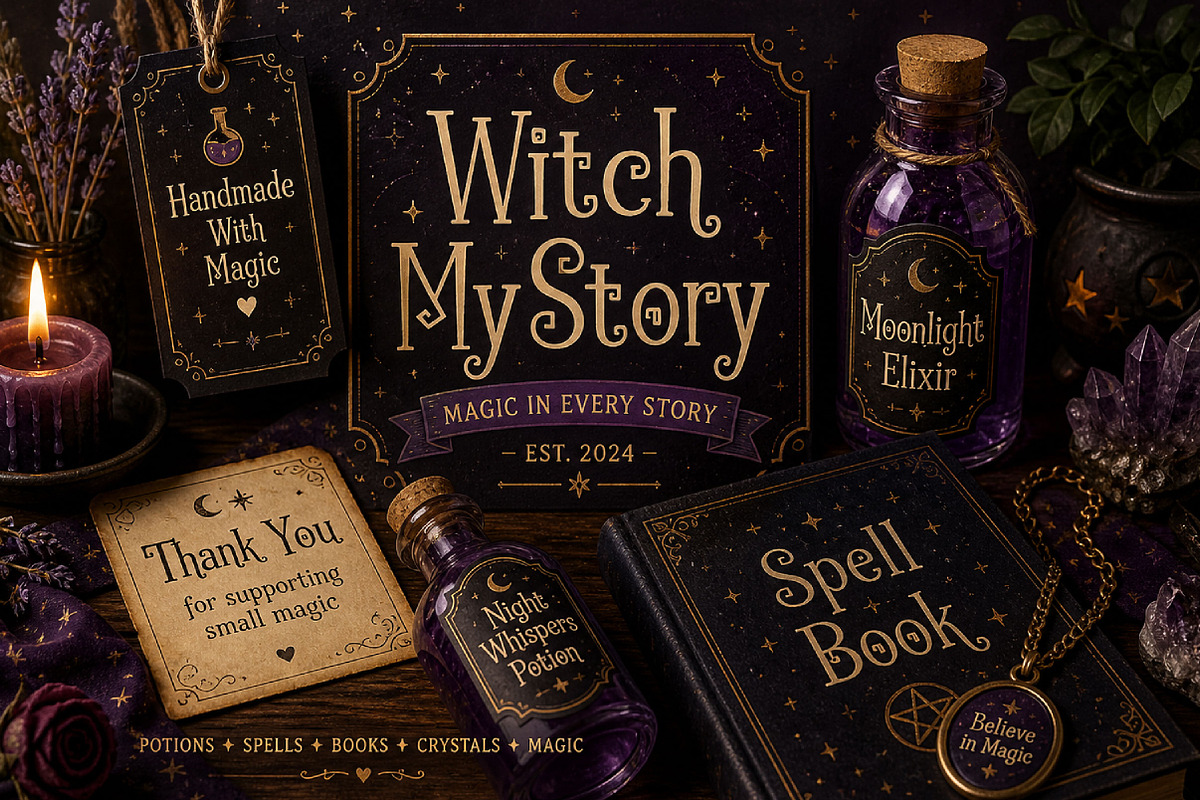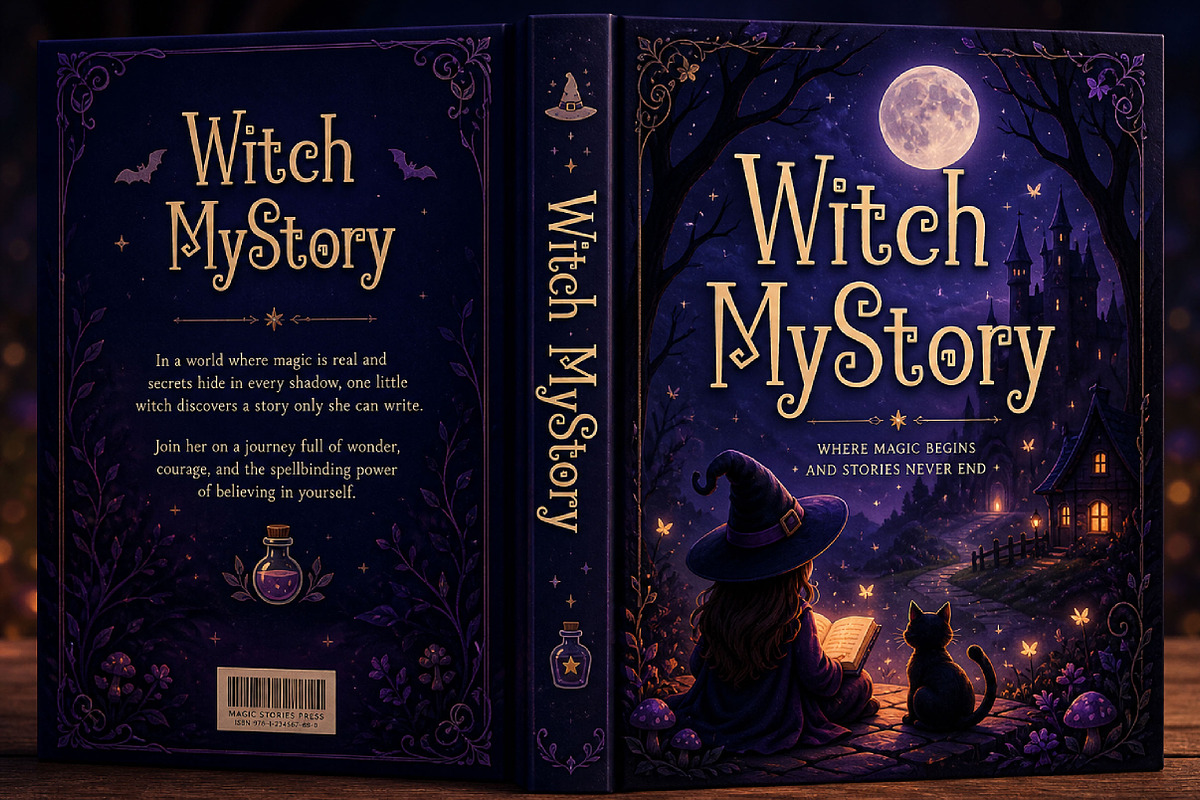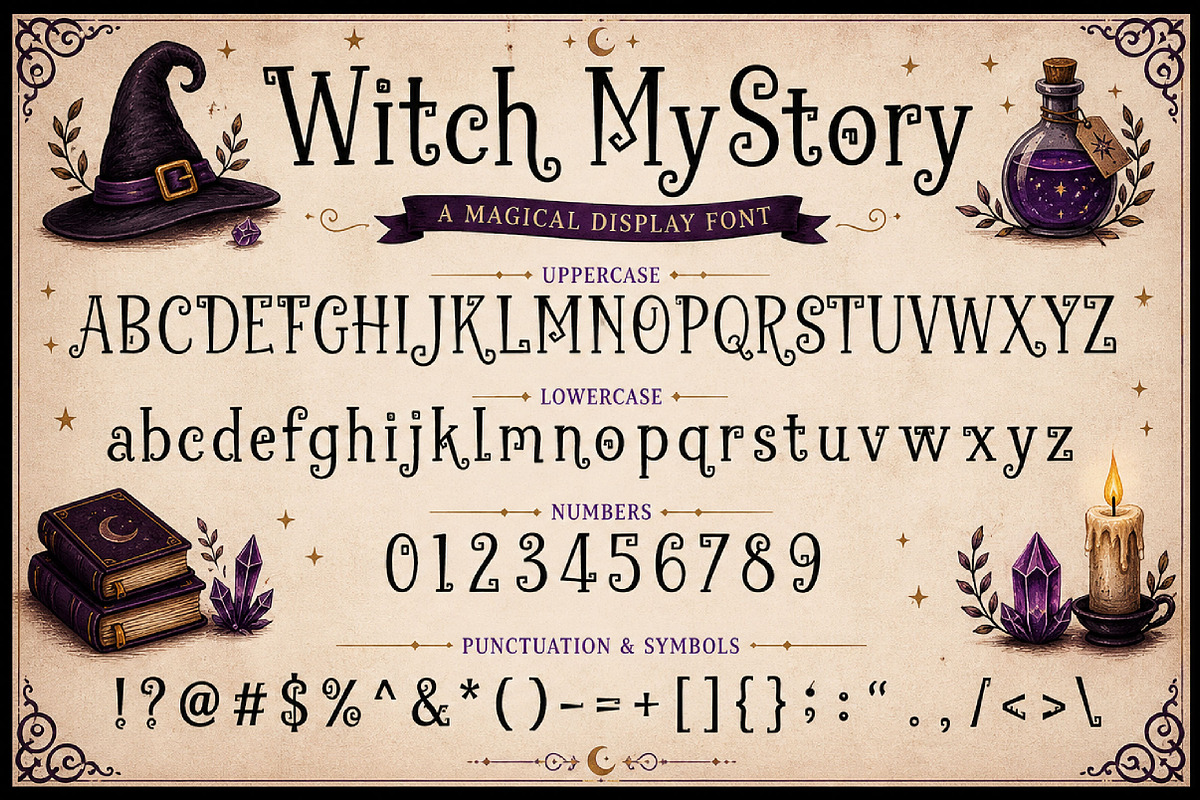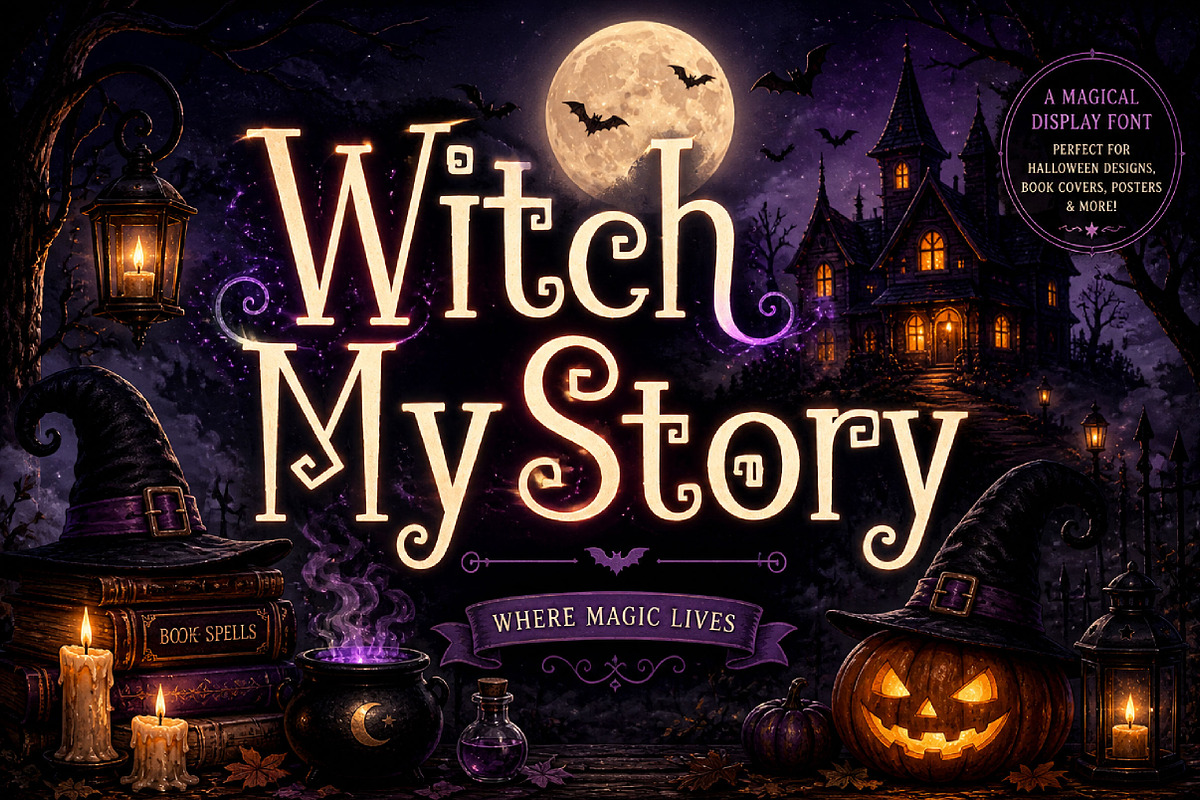
Witch MyStory
Witch MyStory – Magical Whimsical Display Font
Witch MyStory is a magical whimsical display font with playful curls and spooky decorative details, perfect for Halloween designs, storybook titles, posters, logos, invitations, and creative branding.
Witch MyStory is a whimsical decorative display font designed to bring mystery, magic, and playful character to your creative projects. With its tall letterforms, curled details, and unique hand-crafted style, this font creates a charming fantasy look that feels spooky, fun, and full of imagination.
Its magical storybook personality makes Witch MyStory perfect for Halloween projects, party invitations, book covers, posters, logo design, product packaging, stickers, social media graphics, merchandise, classroom designs, and fantasy-themed branding.
Halloween designs
Storybook titles
Posters and headlines
Party invitations
Logos and branding
Product packaging
Stickers and labels
Classroom designs
Fantasy-themed designs
Uppercase letters
Lowercase letters
Numbers and punctuation
Magical decorative style
Whimsical curled details
Spooky playful look
Hand-crafted display character
Perfect for headline use